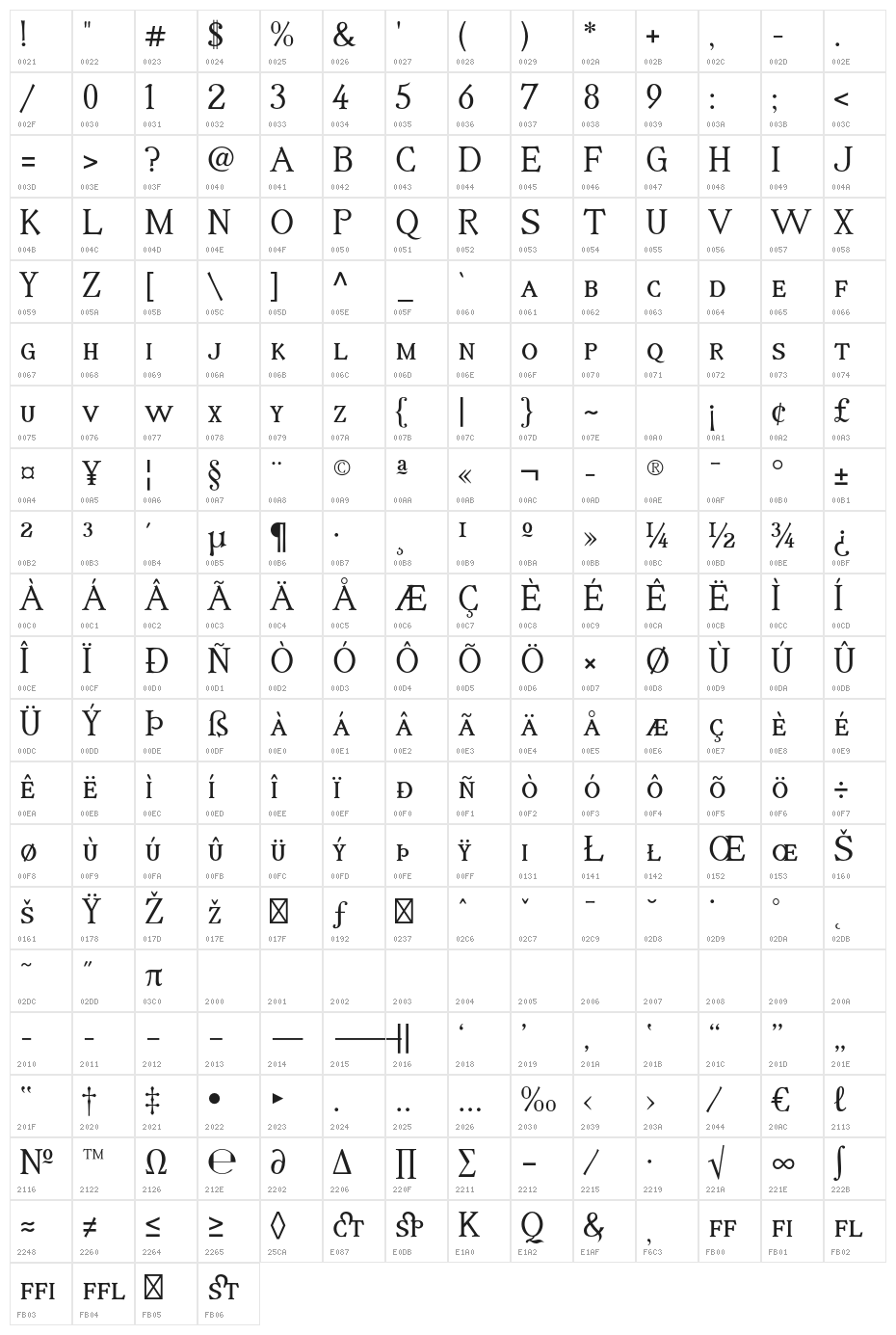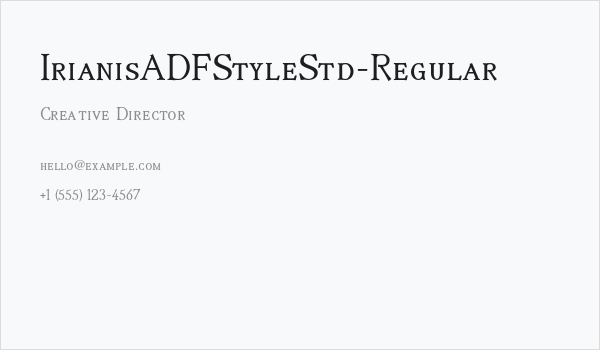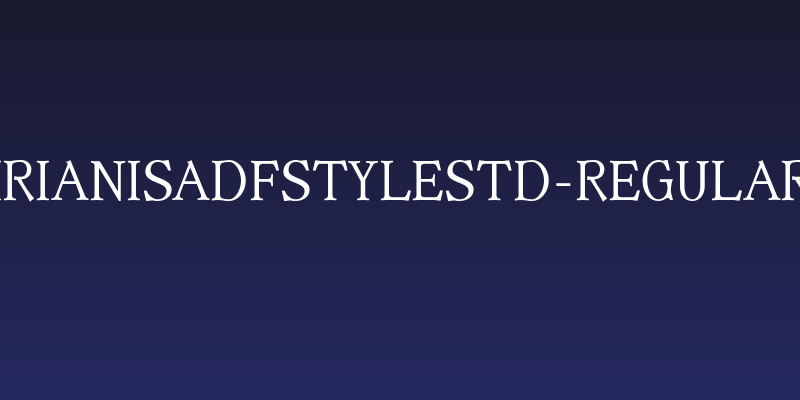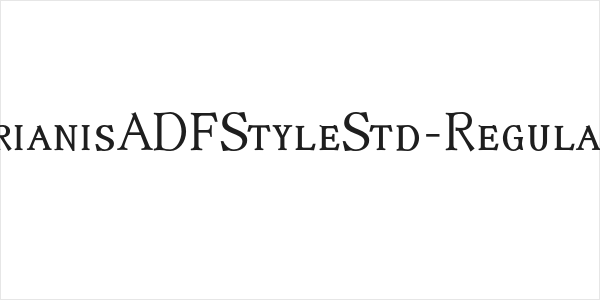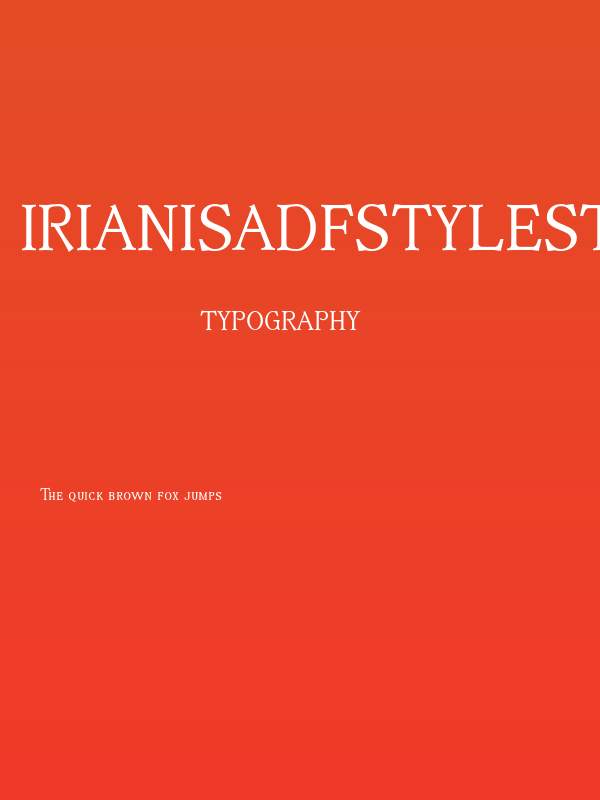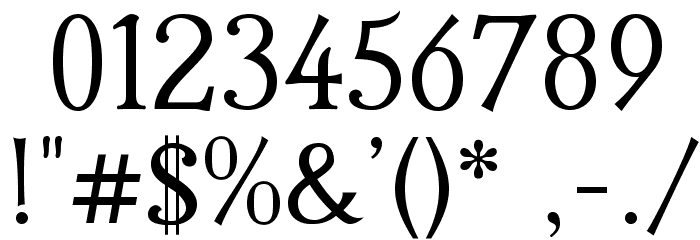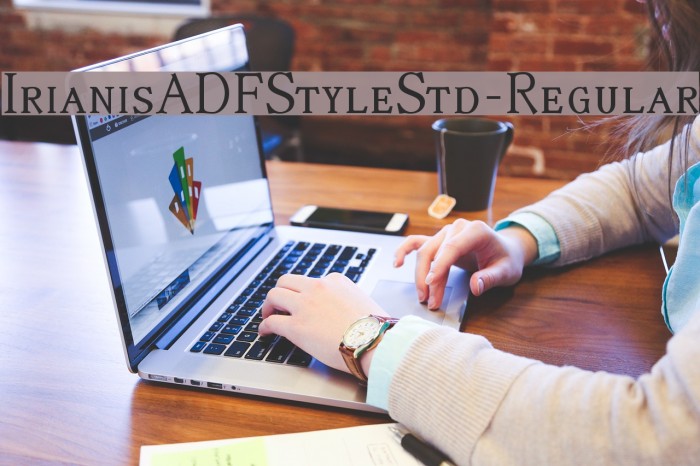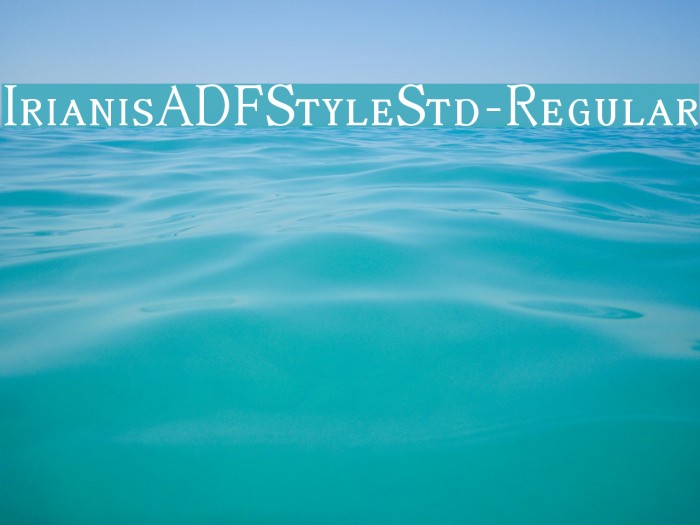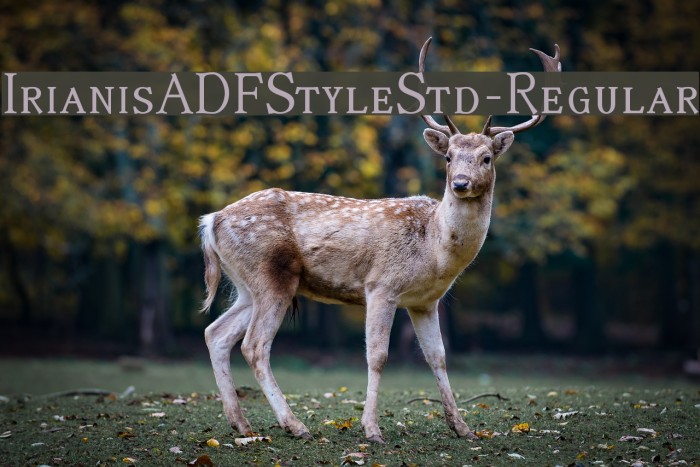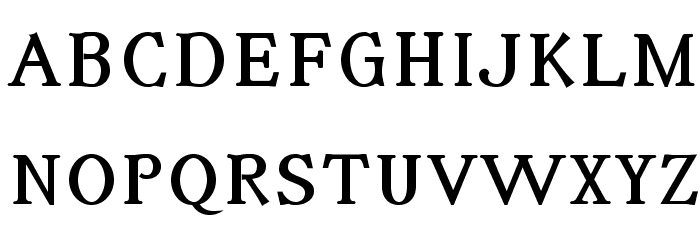
IrianisADFStyleStd-Regular Font
IrianisADFStyleStd-Regular Description
This font exhibits a classic serif style with a modern twist, characterized by its elegant and refined letterforms. The uppercase letters are bold and commanding, while the lowercase letters maintain a balanced and harmonious appearance. The numerals are clear and distinct, ensuring readability. Special characters are well-integrated, providing a comprehensive set for various uses. The font's design is both timeless and versatile, making it suitable for a wide range of applications.
| Proposed Projects | Ideal for editorial design, book covers, formal invitations, and branding projects that require a touch of sophistication. |